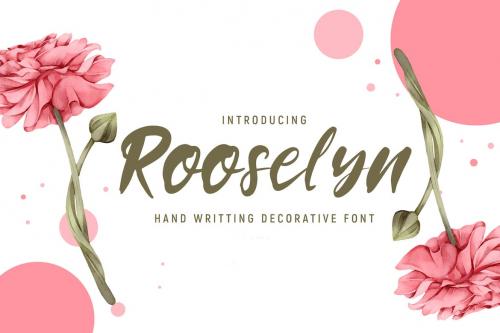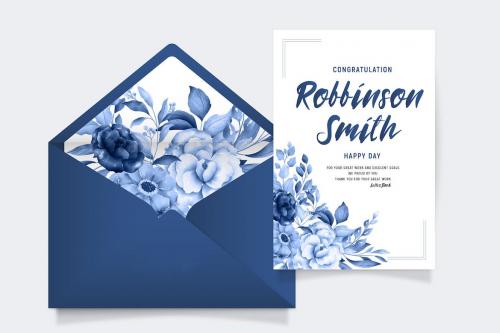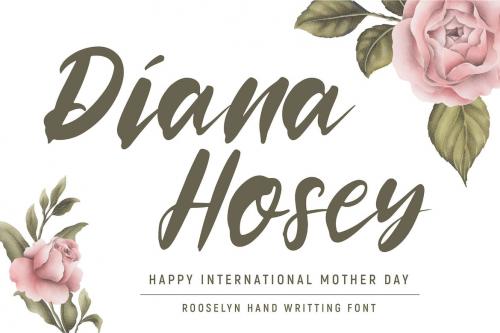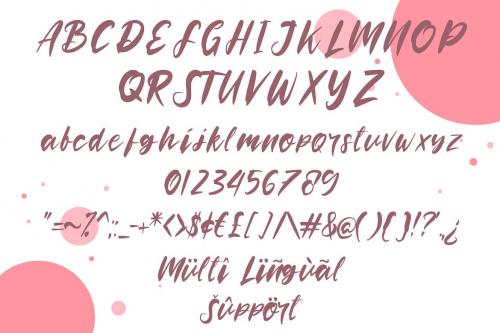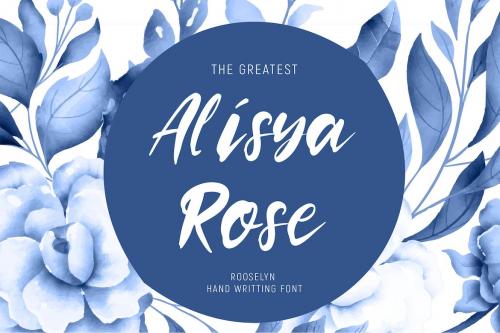
罗索琳字体
Rooselyn
**ROSELYN Script Font** This pair was inspired by the beautiful lettering poster design that i saw at same cafe, It was crafted by hand specially to add natural handmade feeling in this. **Opentype features** ROSEYN Script font has 160 character set
**ROSELYN Script Font**
This pair was inspired by the beautiful lettering poster design that i saw at same cafe, It was crafted by hand specially to add natural handmade feeling in this.
**Opentype features**
ROSEYN Script font has 160 character set
ROSElYN Font is very good looking in logo, labels, t-shirt prints, product packaging, invitations, advertising and others.